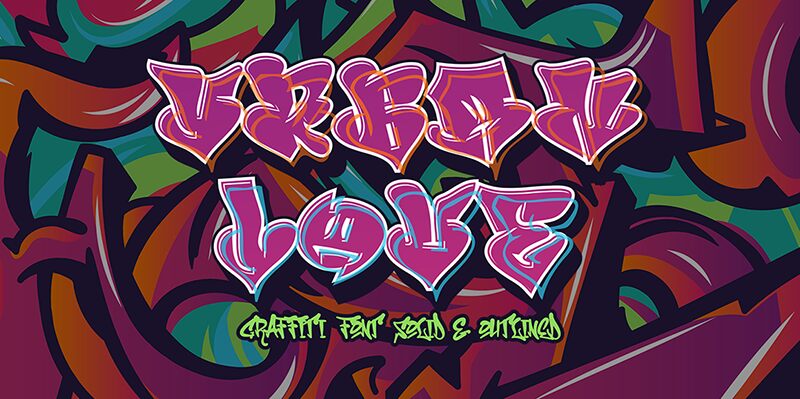
Urban Love Outline
Urban Love Outline font by Cikareotype Studio is a vibrant graffiti style display font with a unique design. Born out of a love for urban art, it’s dynamic and expressive form promises to convey an energetic vibe with an authentic street culture influence. Its artistic flair is the component required to let your work stand out from the crowd.
The font is free and ideal for logos, headlines, covers, posters, apparel designs, displays, banners, decorations or invitations given its bold yet youthful structure. Urban Love Outline can see great success as part of digital or printed designs in both personal and commercial projects.